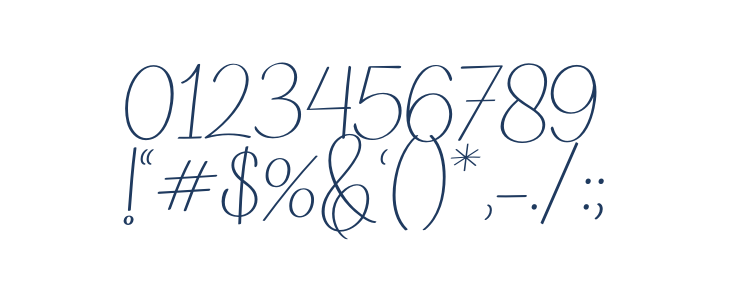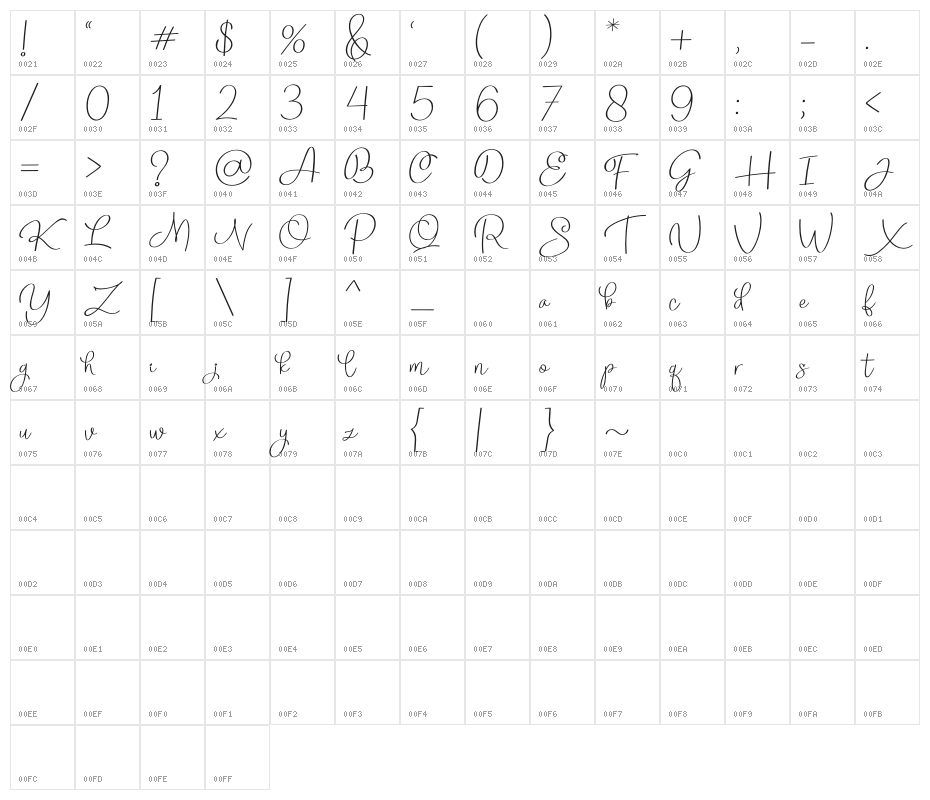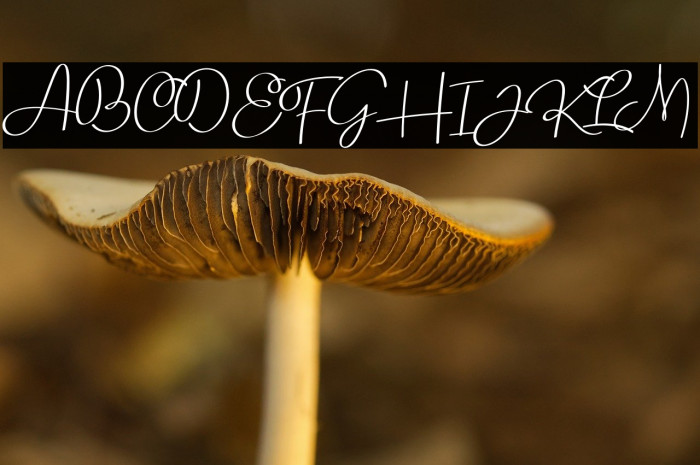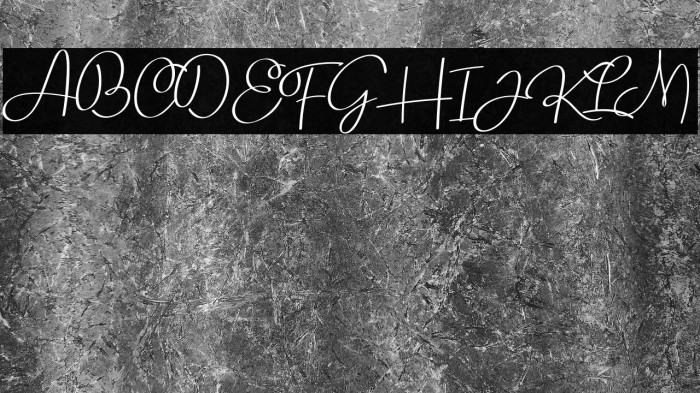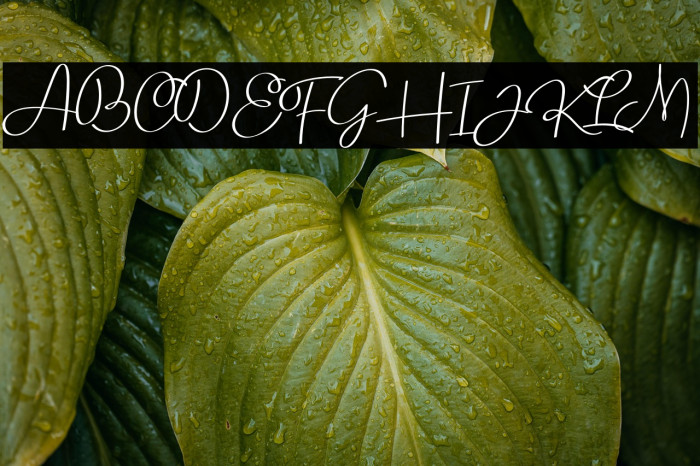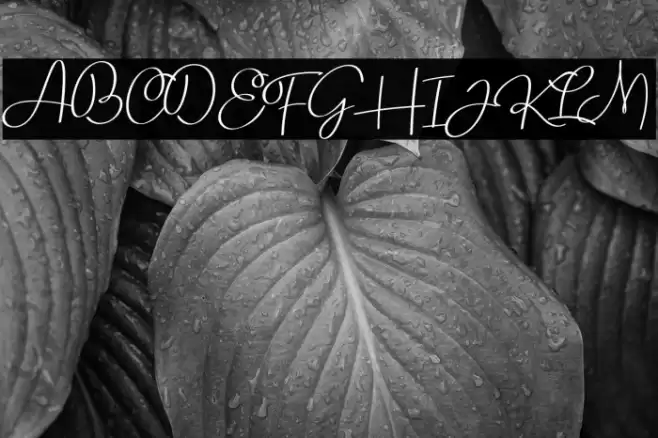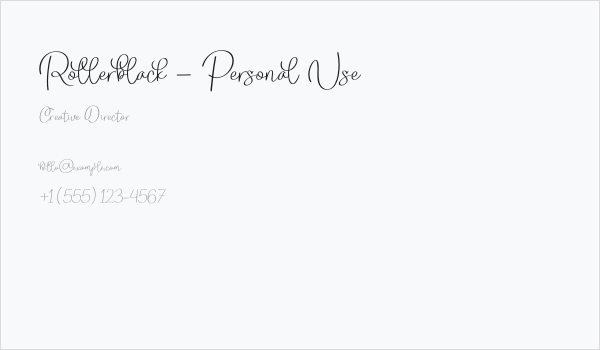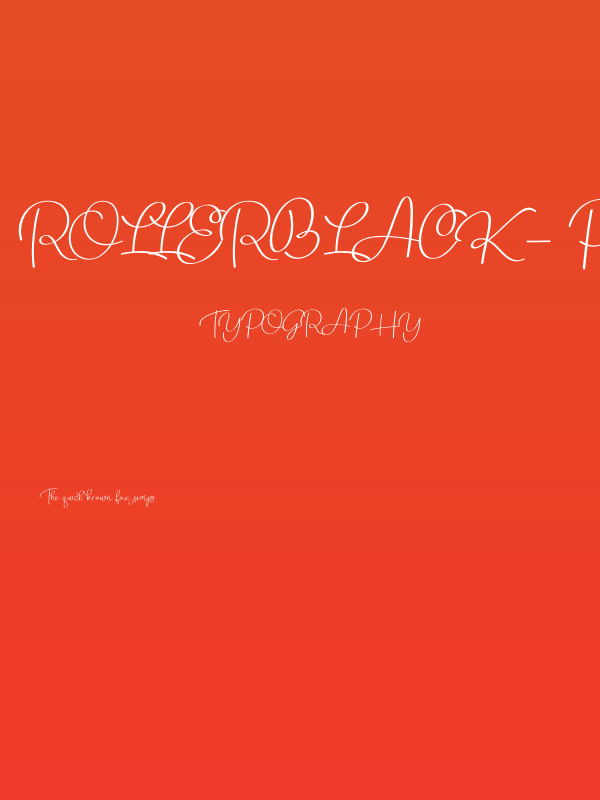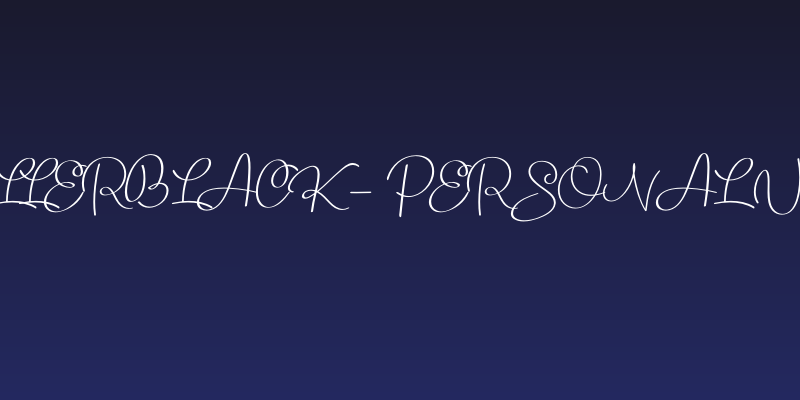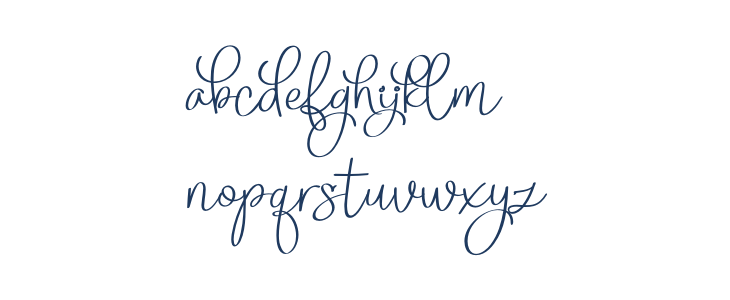
Rollerblack - Personal Use Font
Rollerblack - Personal Use Description
This elegant script font features a flowing, cursive style with a modern twist. The uppercase letters are characterized by their sweeping curves and loops, giving them a sophisticated and graceful appearance. The lowercase letters maintain a consistent flow, with smooth connections between each character, enhancing the font's readability. The numerals are designed with a similar fluidity, ensuring they complement the overall aesthetic. Special characters are thoughtfully integrated, maintaining the font's cohesive look. This font's delicate strokes and artistic flair make it ideal for projects that require a touch of elegance and creativity.